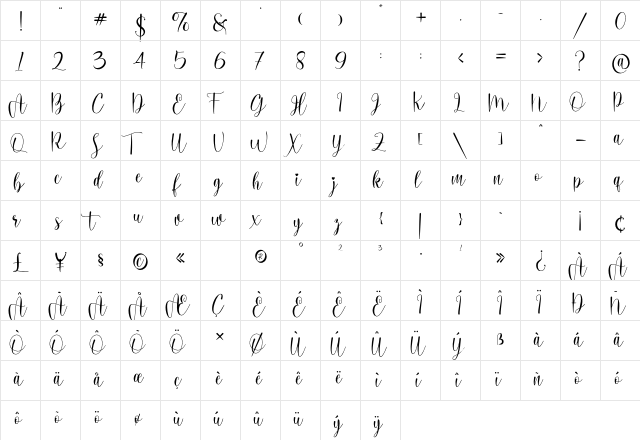
Lovely Personal Use Script Regular
Design Context for Lovely Personal Use Script Typeface
Lovely Personal Use Script brings a calligraphic fluidity to the page — its connecting strokes and expressive curves give it an unmistakably human quality.